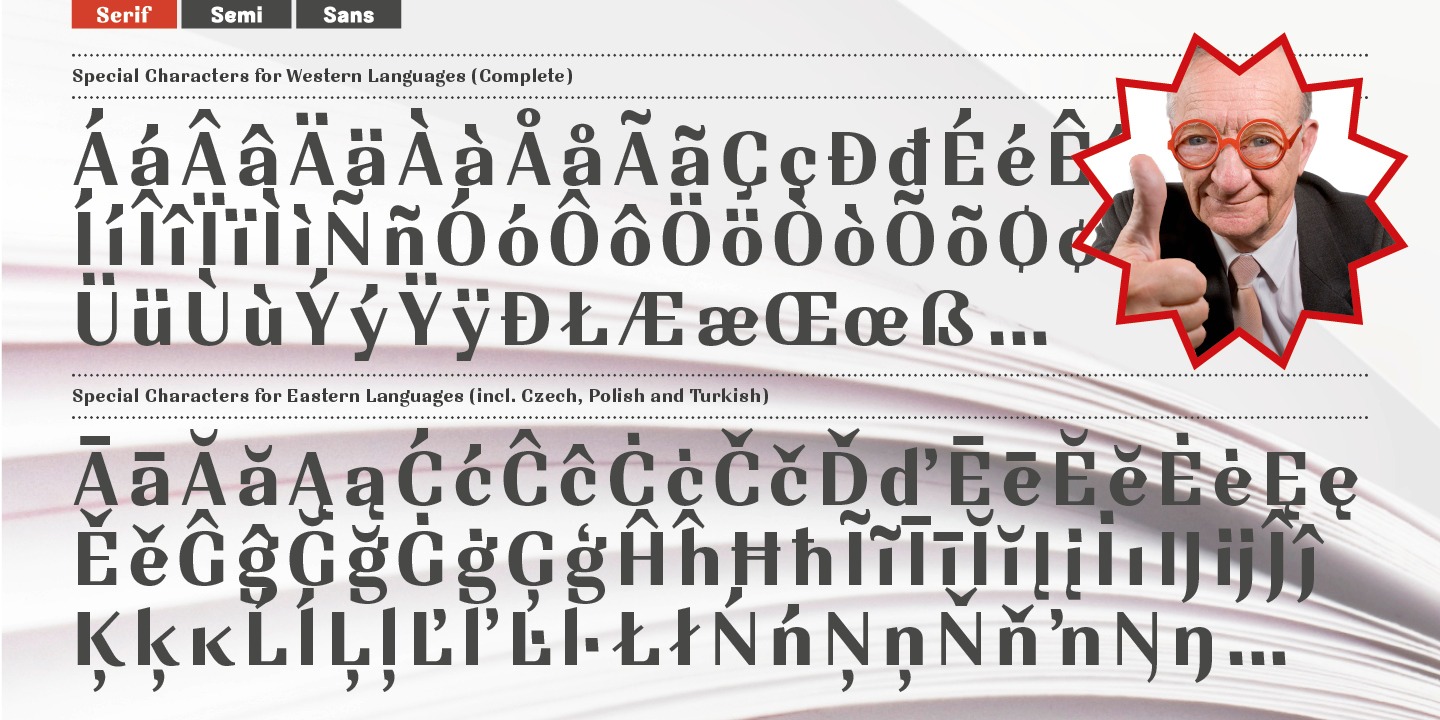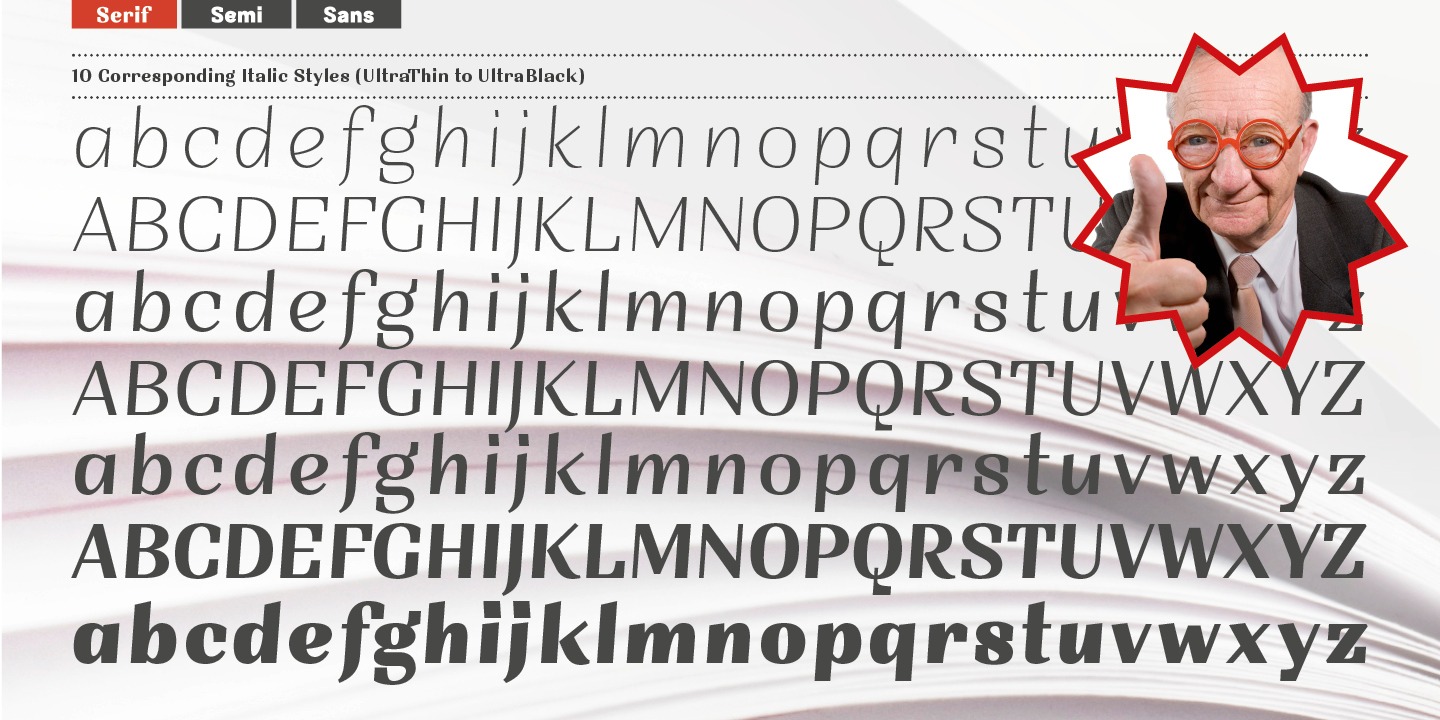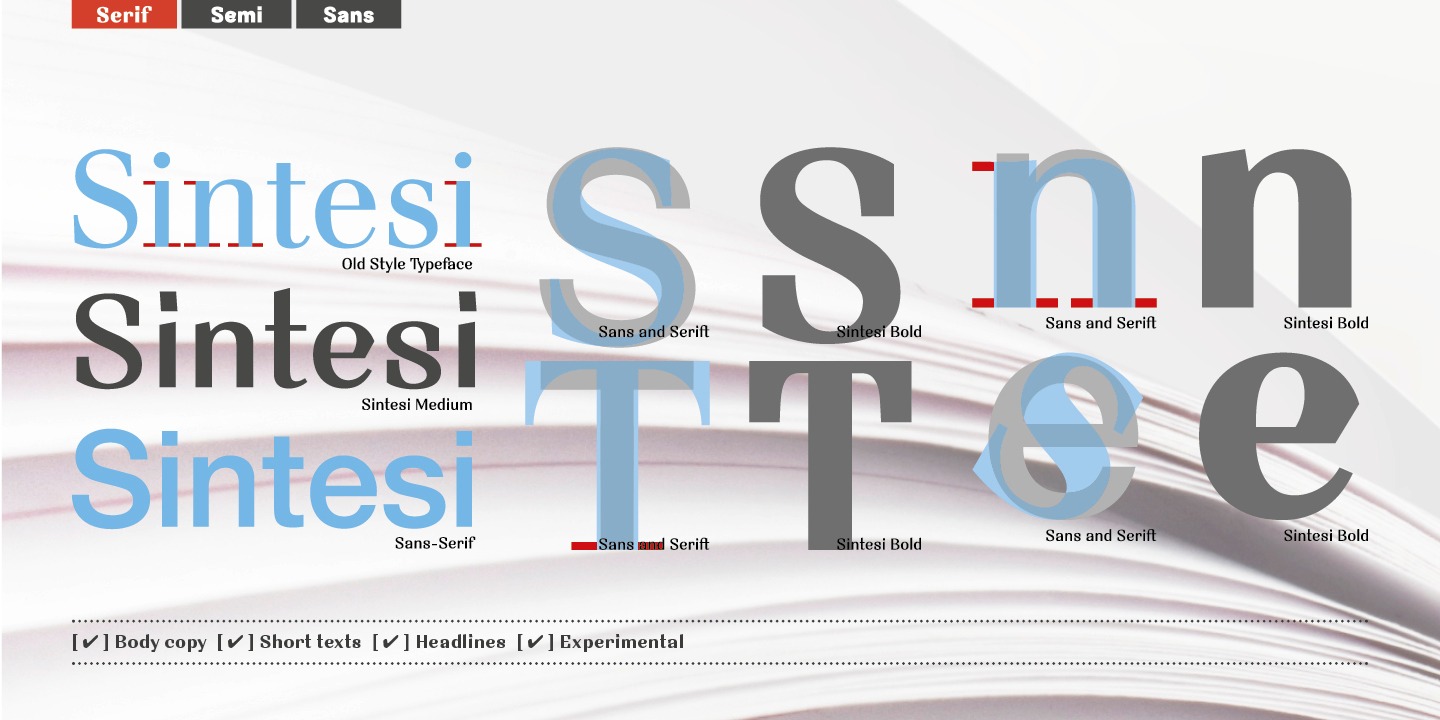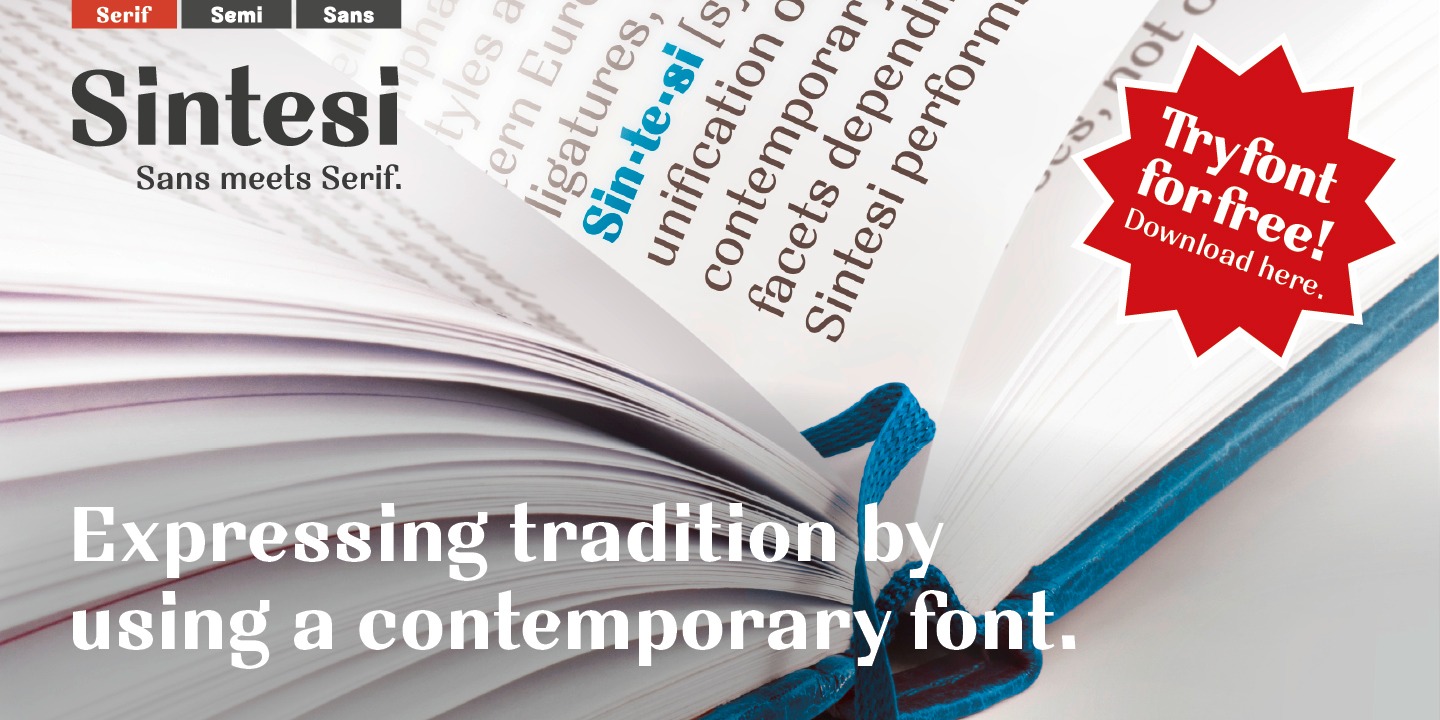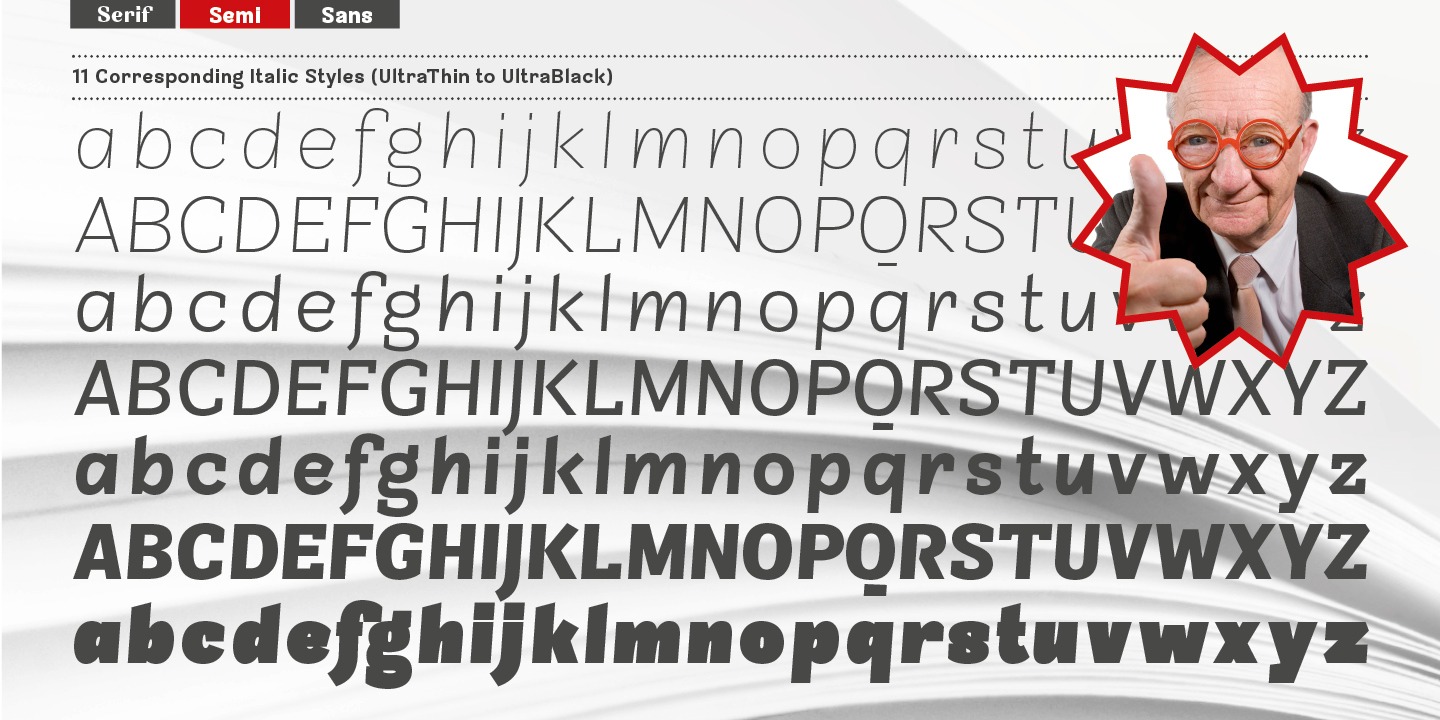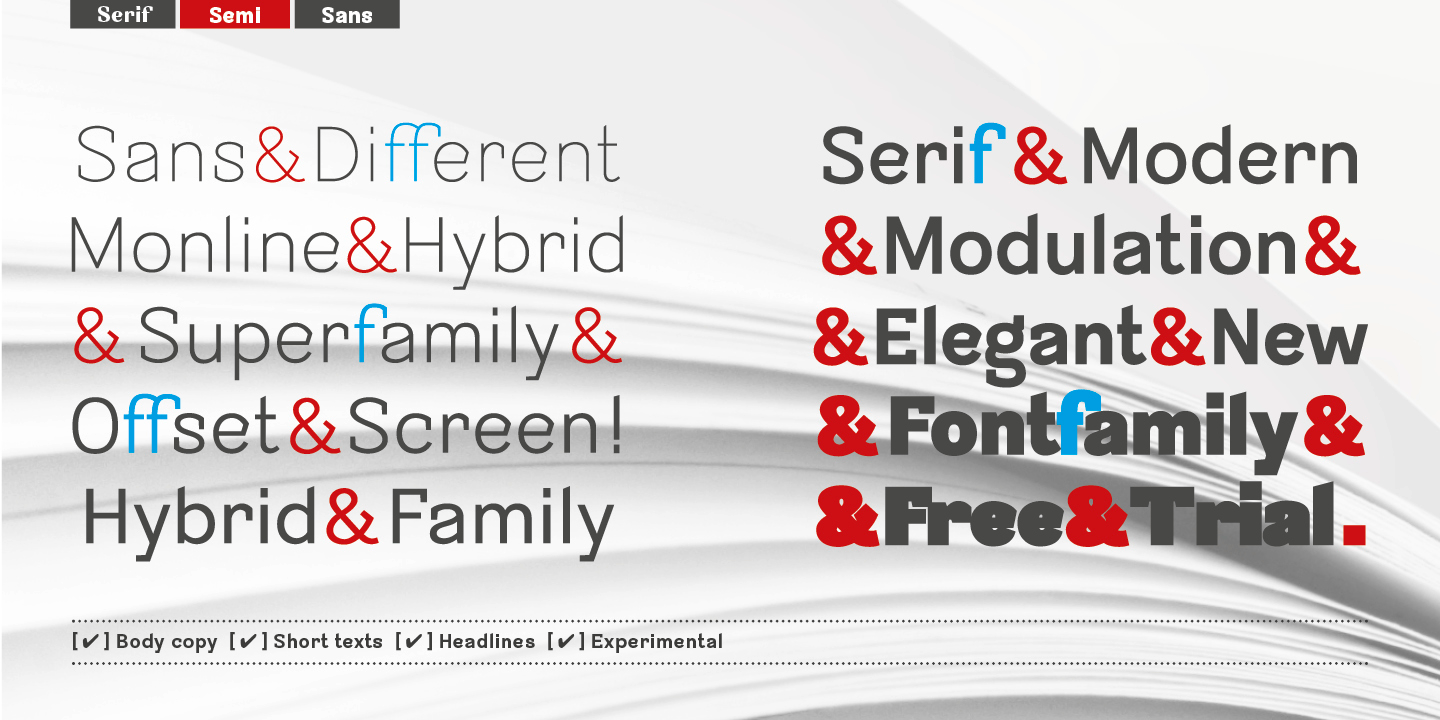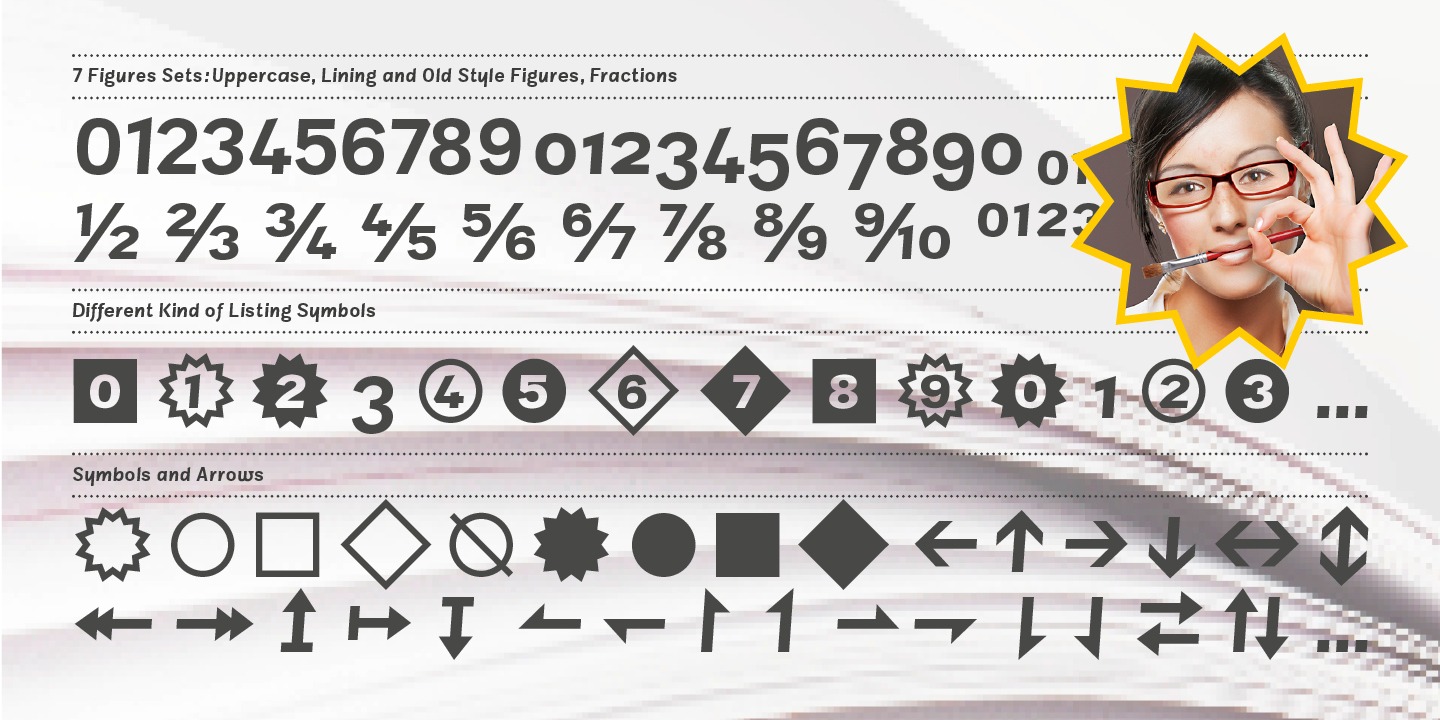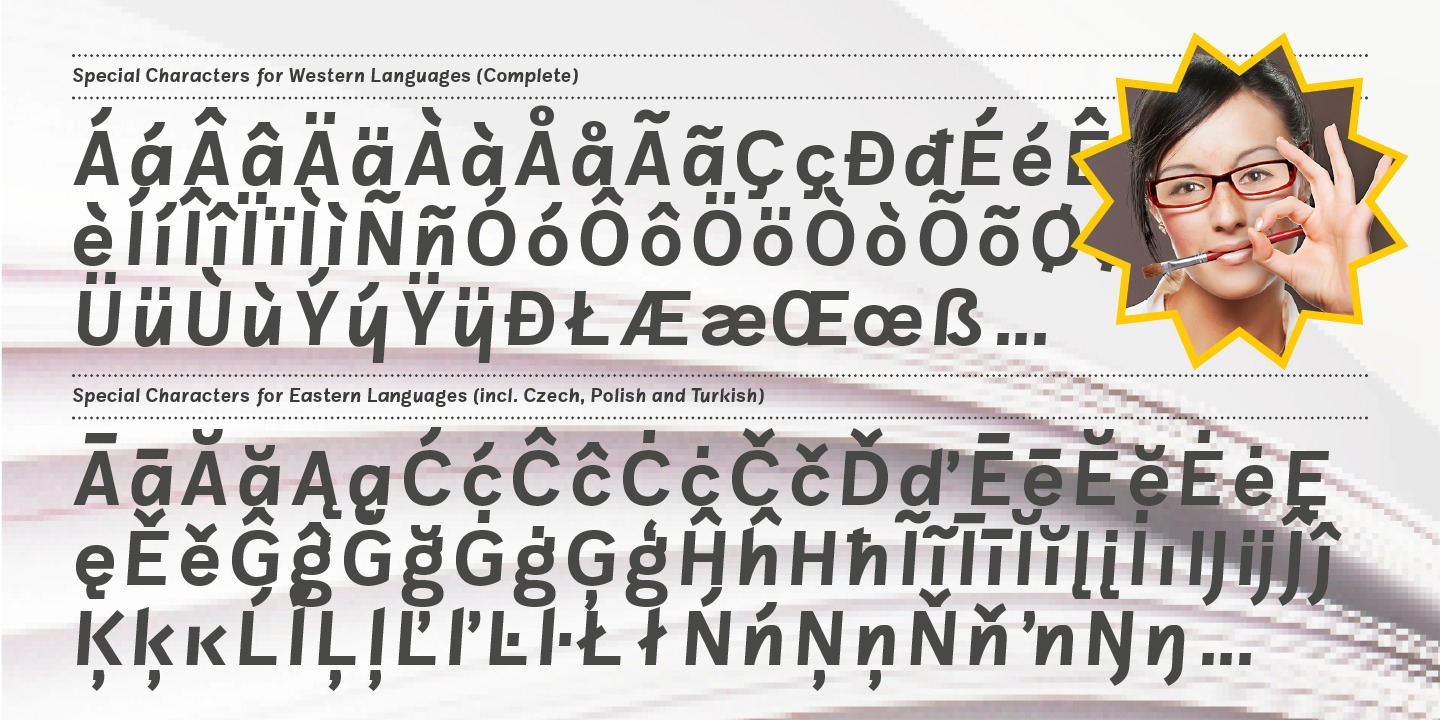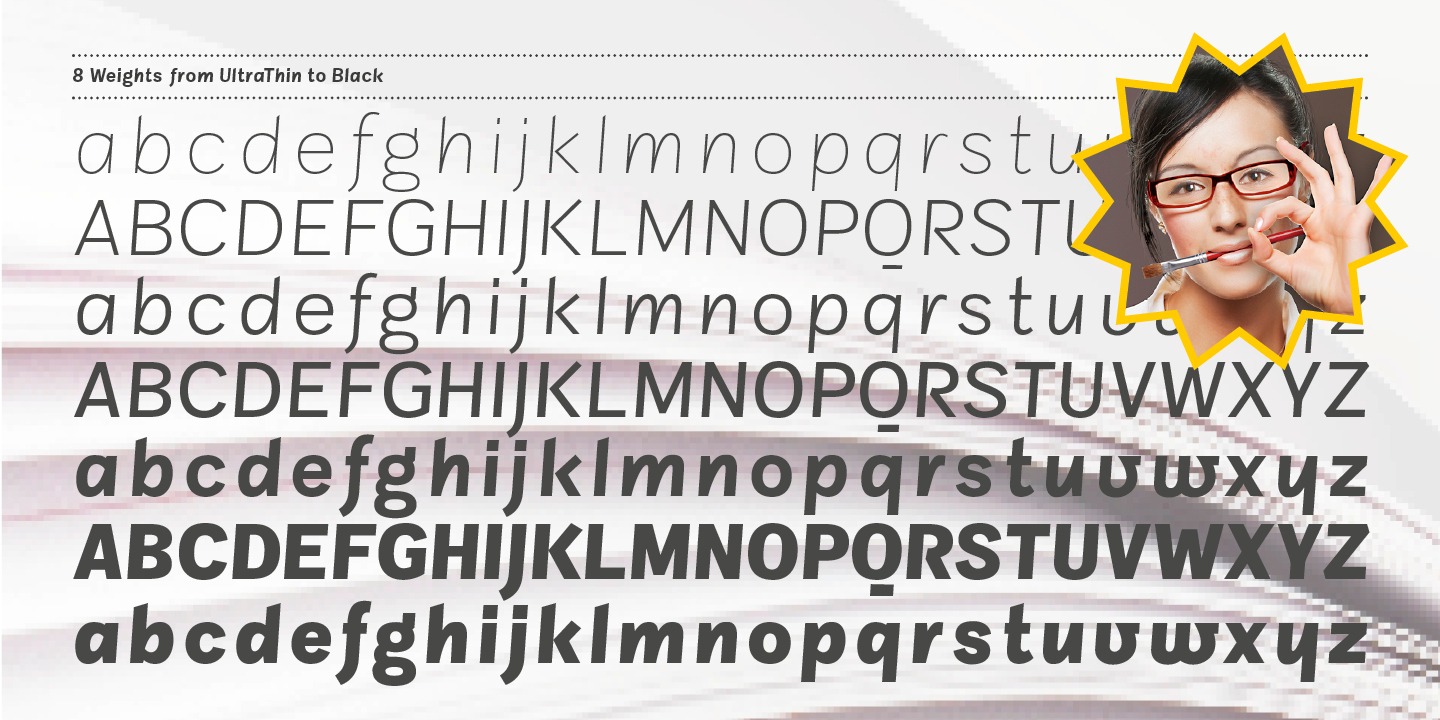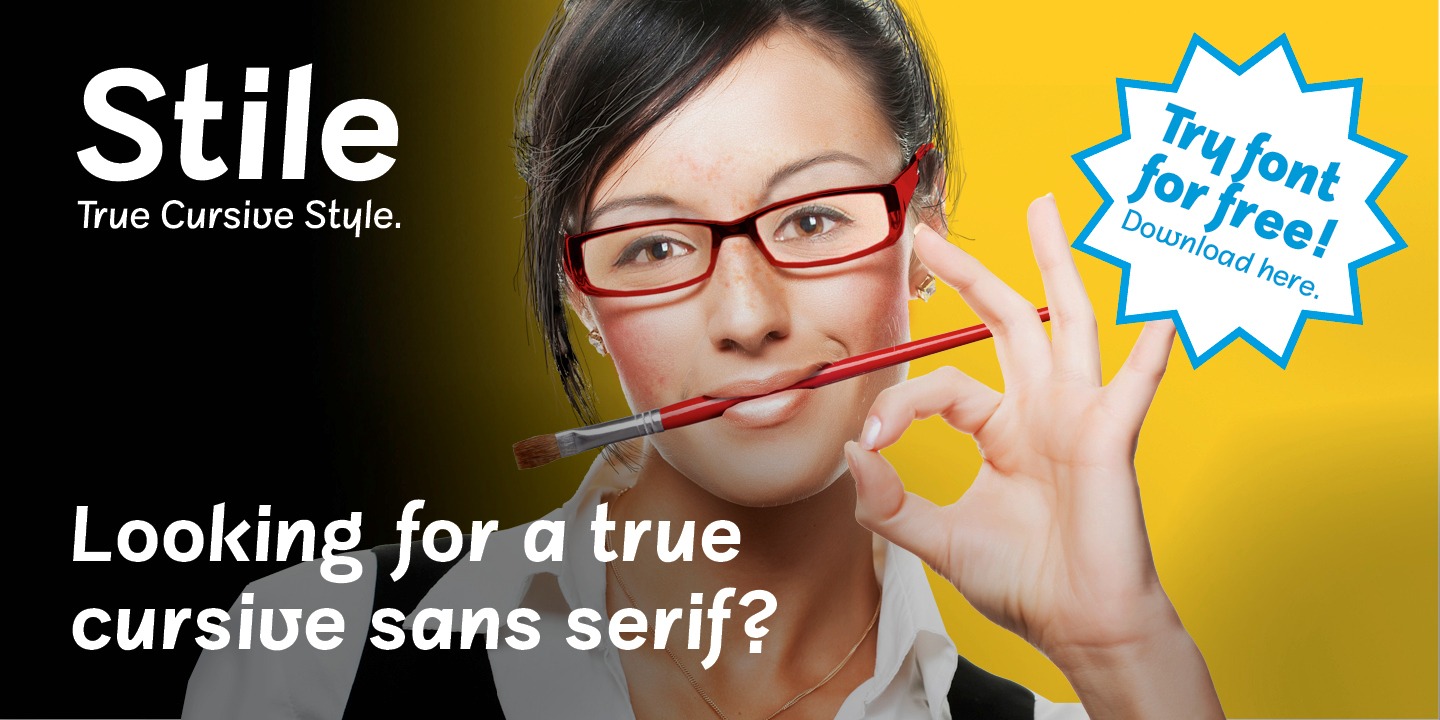
Filippo Salmina of SwitzerlandBorn: 1975
Filippo Salmina is a young Swiss designer. After graduating in architecture he attended a design school where he was trained in design, lettering, and sign writing. At the moment he works as designer for a medical company. He is responsible for design, lettering, illustration and typography for various design projects. He is particularly interested in science fiction and aims to become a starship interior designer. Off-job he designs cool, technological, toxic fonts which are available from his own label: FSdesign. Check it out! Fonts by Filippo SalminaAtoxina, Btoxina, Ctoxina, Etoxina, Itoxina, Mimix Browse all fonts by Filippo Salmina ActivitiesPlease note: This is not an official page of Filippo Salmina and e-mailing us is not a good way to contact him. Corrections welcomed. |